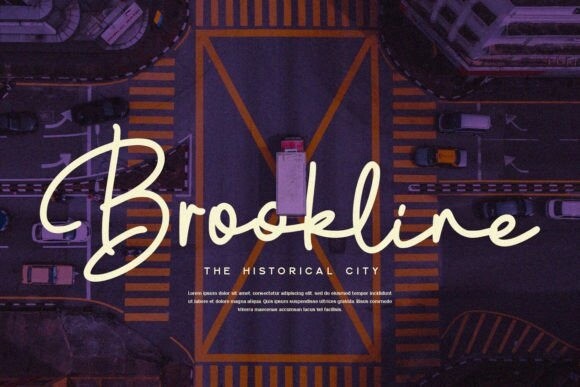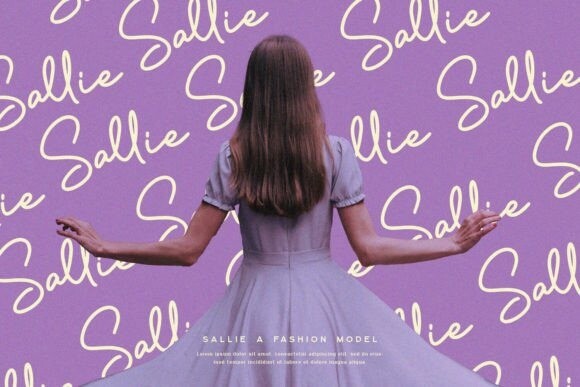
Delectable Font
Designer: alpapranastudio
Delectable Font is a trendy handwritten font with a contemporary atmosphere and impeccable form, inspired by timeless classic calligraphy. It will add elegance and class to any of your design projects.